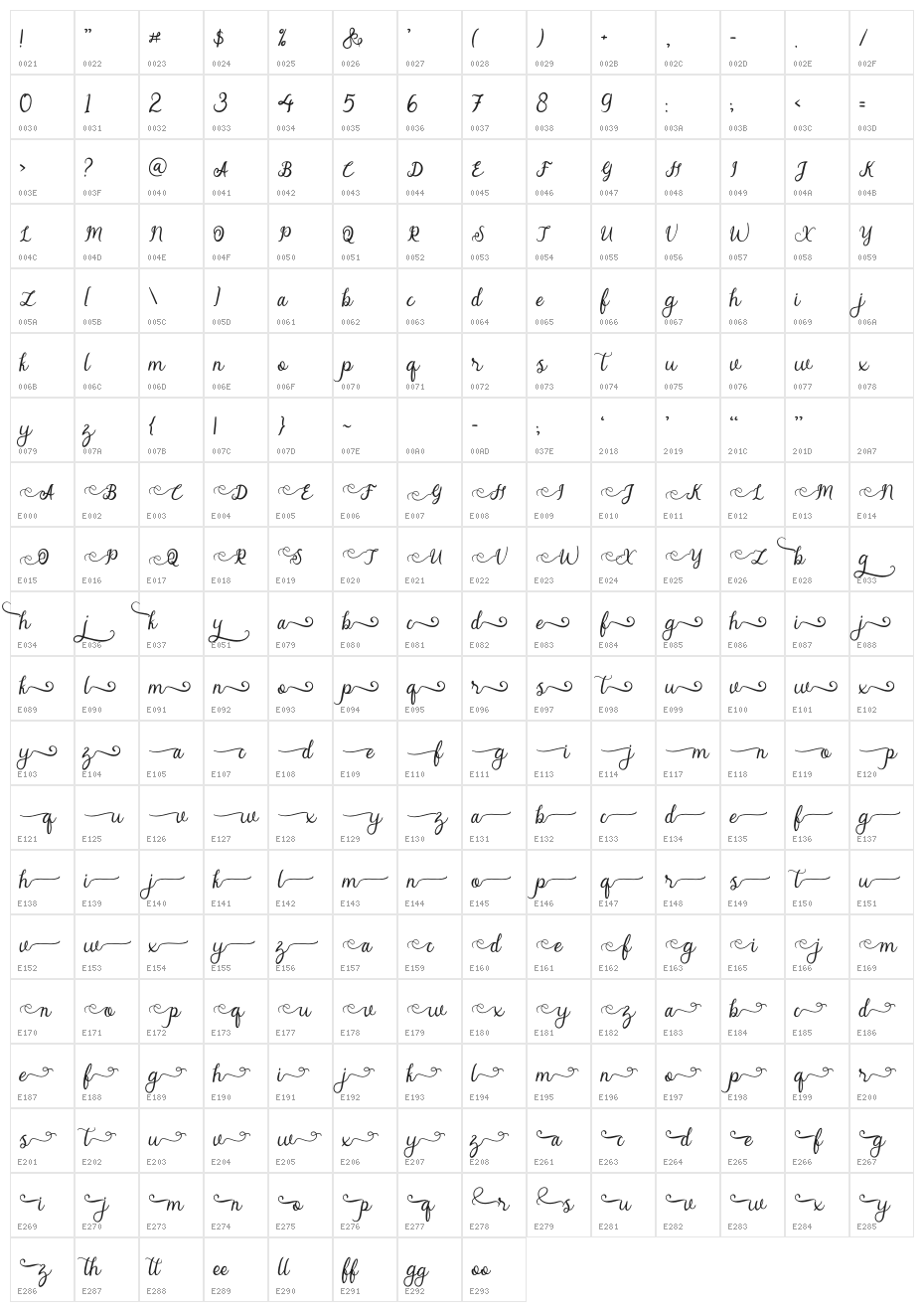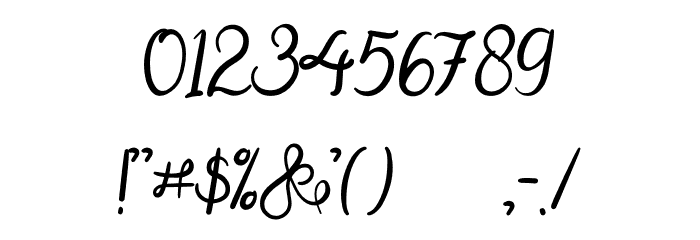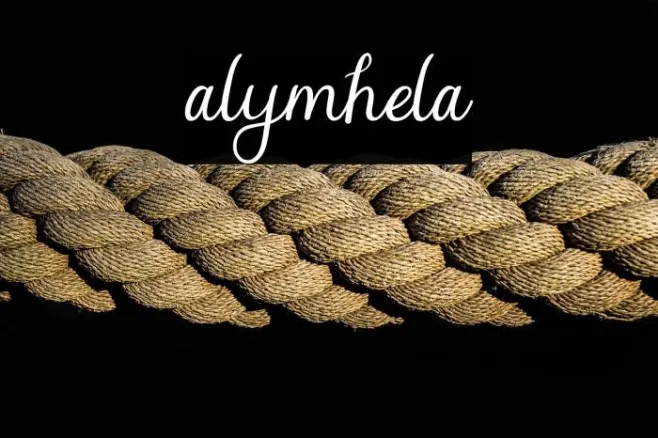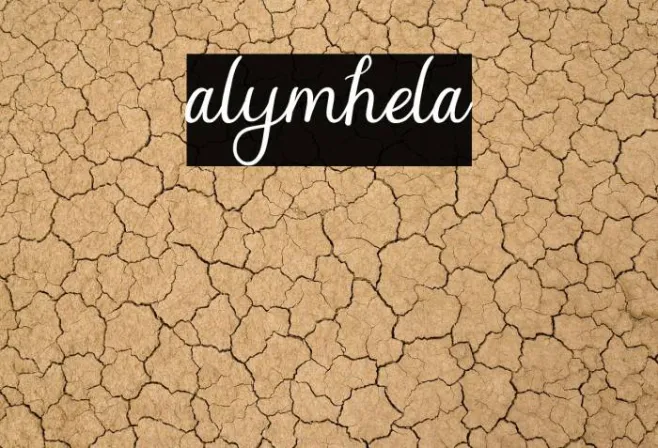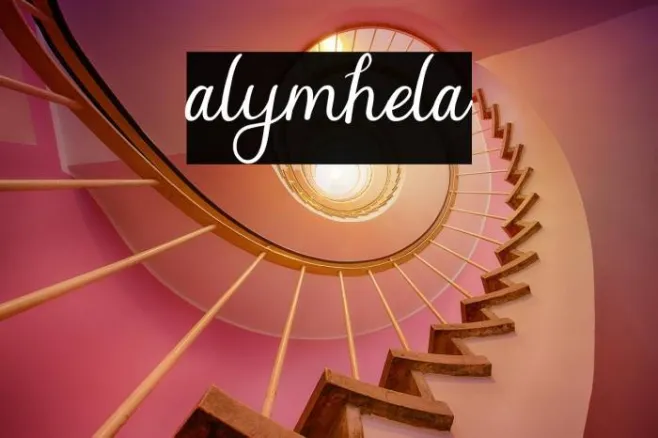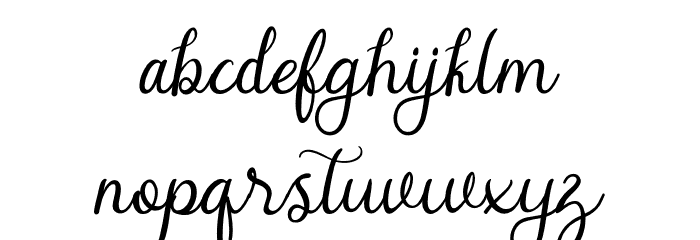
alymhela Font
alymhela Description
This elegant script font features fluid, cursive strokes that convey a sense of sophistication and grace. The uppercase letters are characterized by their sweeping curves and loops, creating a harmonious flow across the text. The lowercase letters maintain a consistent style, with gentle connections between characters that enhance readability while preserving the font's decorative nature. Numbers and special characters are designed with the same attention to detail, ensuring a cohesive appearance throughout. This font is ideal for projects that require a touch of elegance and refinement.
| Proposed Projects | Wedding invitations, elegant branding, greeting cards, and luxury product packaging. |